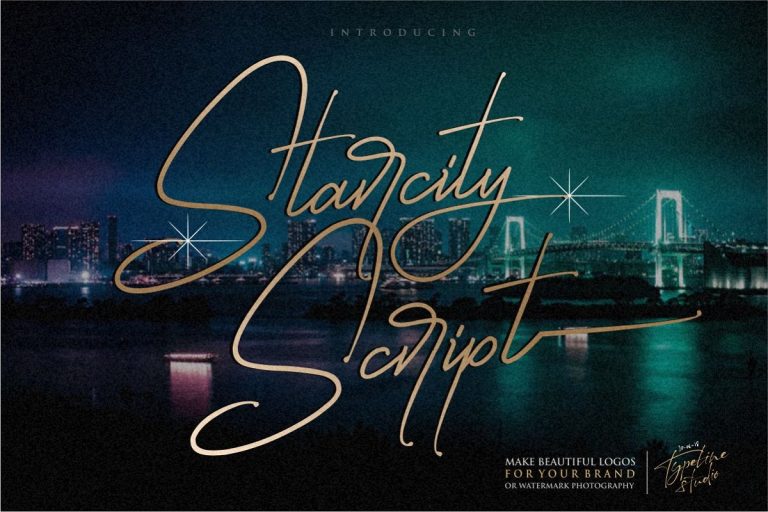
Starcity Script Font
This is a new script signature font. Say hello to Starcity Font. I introduced our newest product font Starcity Script which is perfect for creating logos and watermarks for brands and photography. I made it with a sense of luxury, unique and of course also elegant. You can try it first by typing the name you want below.